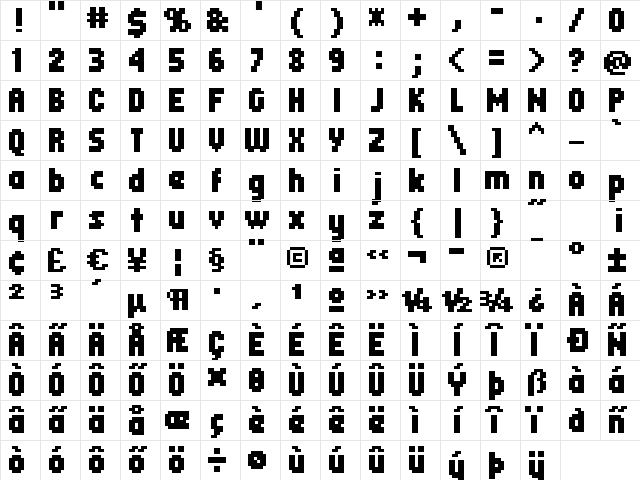
header 08_68 Regular
Design Context for header 08_68
header 08_68 is a composed and adaptable typeface that performs quietly and consistently across a wide range of design contexts.